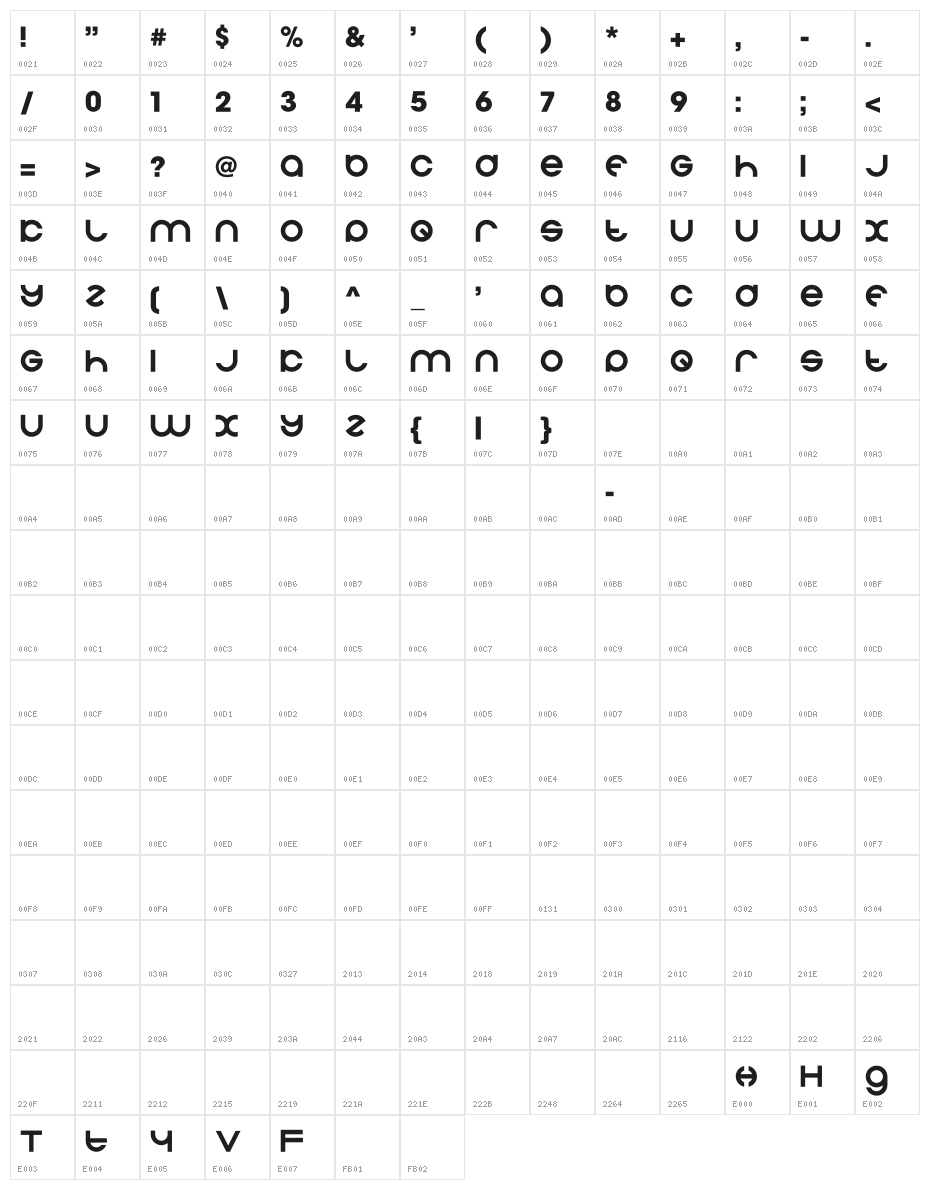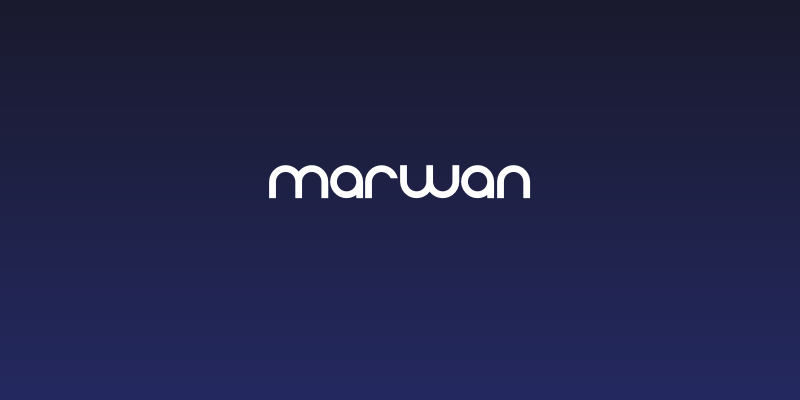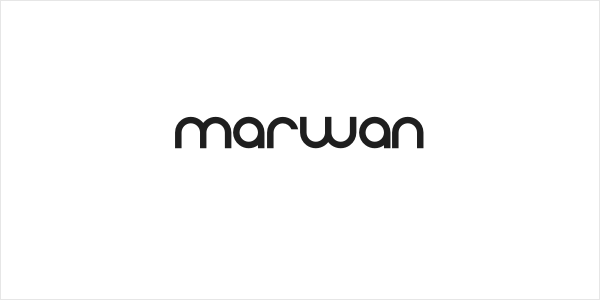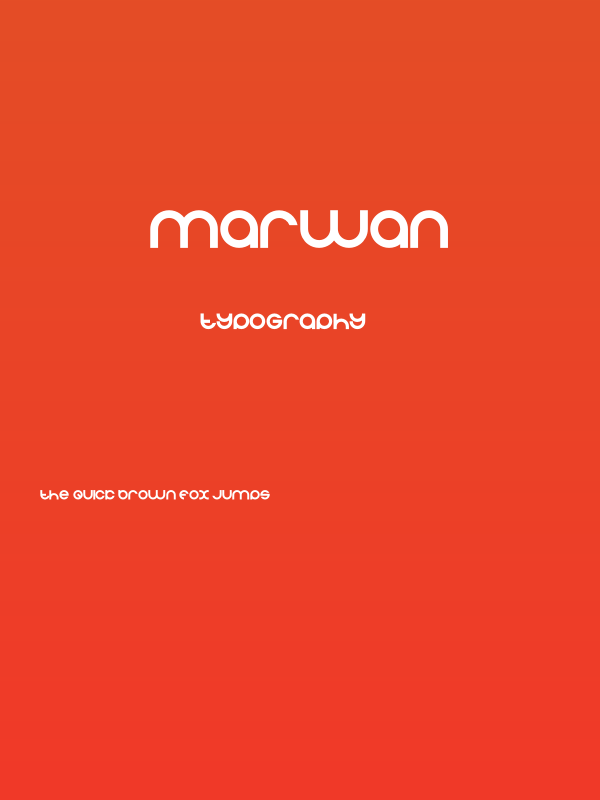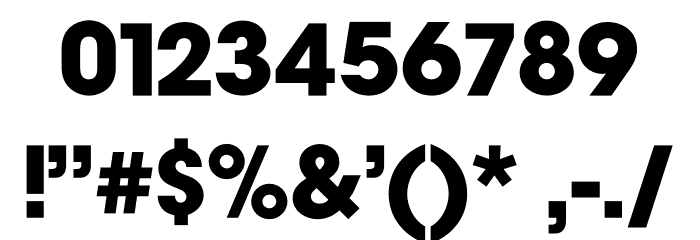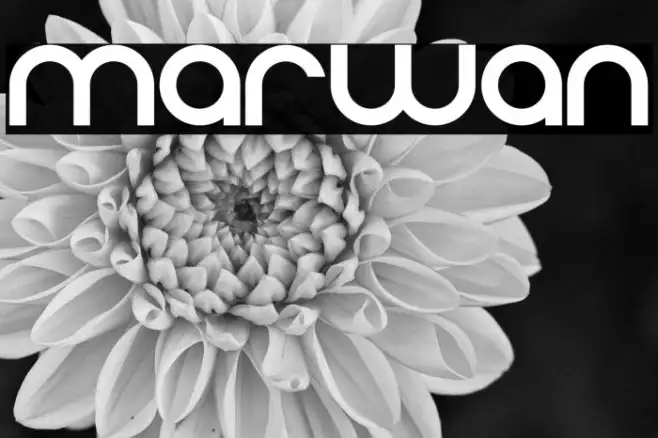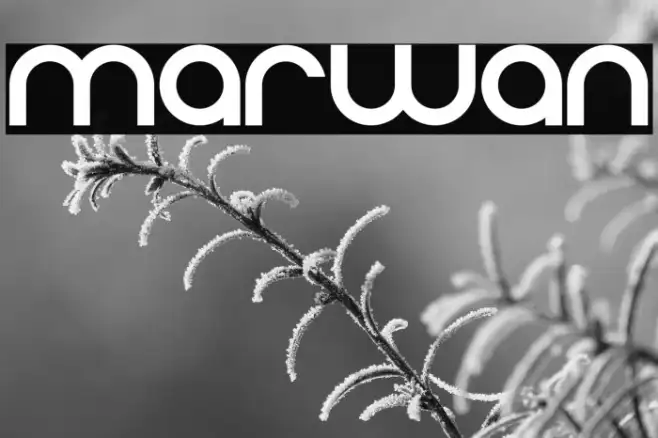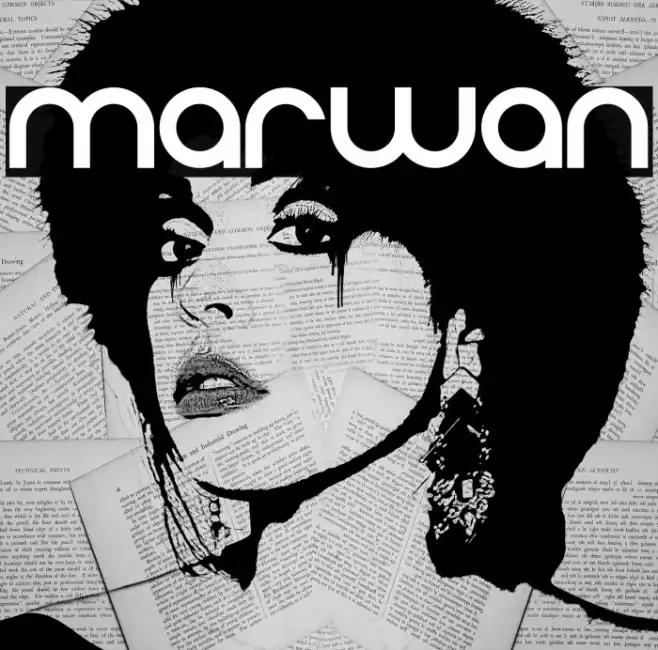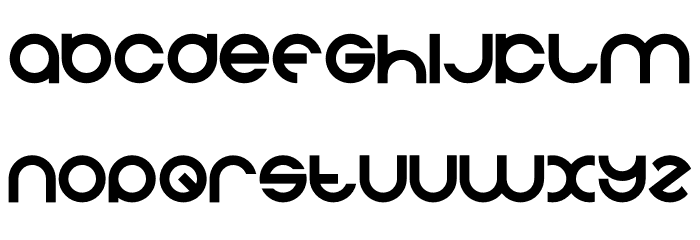
marwan Font
marwan Description
This font features a bold, geometric design with a modern and futuristic aesthetic. The characters are constructed with clean, circular shapes and consistent stroke widths, creating a cohesive and visually striking appearance. The uppercase and lowercase letters share a similar structure, emphasizing uniformity and balance. The numerals and special characters maintain the same bold and geometric style, ensuring consistency across all elements. This font's unique design makes it stand out, offering a fresh and contemporary look.
| Proposed Projects | Ideal for branding, logos, posters, and digital media projects that require a modern and eye-catching typeface. |